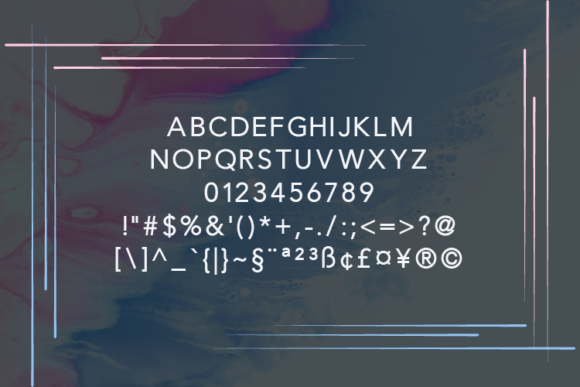
Gothic Regular Font: Elevate Your Designs with Modern Elegance
In the world of typography, fonts play a crucial role in conveying the tone and aesthetic of a design. For designers and crafters seeking a modern and elegant sans serif font, Gothic Regular is an excellent choice. This versatile font is perfect for a wide range of projects, from headings to smaller body text, and pairs beautifully with script and handwritten fonts.
What is Gothic Regular Font?
Gothic Regular Font is a contemporary sans serif font designed to bring a touch of sophistication to your designs. Its clean lines, balanced proportions, and elegant feel make it an ideal choice for designers looking to create visually appealing text. The font’s modern aesthetic ensures it remains versatile, suitable for various applications, from digital media to print materials.
Key Features of Gothic Regular Font
- Modern and Elegant Design: Gothic Regular boasts a sleek, modern design that adds an air of sophistication to any project.
- Sans Serif: The font’s sans serif design ensures clarity and readability, making it perfect for both headings and body text.
- Versatility: Gothic Regular can be used across a variety of mediums, including digital platforms, print materials, and more.
- Pairing Options: This font pairs exceptionally well with script and handwritten fonts, offering endless possibilities for creative combinations.
Use Cases for Gothic Regular Font
Gothic Regular’s versatility makes it suitable for a wide range of design projects. Here are some use cases where this font truly shines:
- Headings and Titles: The font’s elegant design makes it perfect for headings and titles, where a striking first impression is crucial.
- Body Text: Gothic Regular’s readability ensures it works well for smaller body text, providing a seamless reading experience.
- Branding and Logos: The modern aesthetic of Gothic Regular makes it an excellent choice for branding and logo designs, helping to establish a sleek and contemporary identity.
- Web Design: For web designers, Gothic Regular is a great option for creating visually appealing website headers, paragraphs, and other text elements.
Why Choose Gothic Regular Font?
With numerous fonts available, why should designers and crafters choose Gothic Regular for their projects? Here are a few compelling reasons:
- Uniqueness: Gothic Regular offers a unique blend of modernity and elegance, setting it apart from more traditional fonts.
- Readability: The font’s clear and balanced design ensures high readability, making it suitable for a wide range of applications.
- Flexibility: Gothic Regular’s versatility allows it to be used in various contexts, from professional branding to personal projects.
Tips for Using Gothic Regular Font Effectively
To maximize the impact of Gothic Regular in your designs, consider the following tips:
- Mix with Script Fonts: Combine Gothic Regular with elegant script fonts for a sophisticated and stylish look.
- Experiment with Sizes: Play with different font sizes to create visual hierarchy and emphasize key elements in your design.
- Consider Color: Choose colors that complement the modern and elegant feel of Gothic Regular, such as neutral tones or bold contrasting colors.
Gothic Regular Font is a powerful tool for designers and crafters looking to elevate their projects with a modern and elegant sans serif font. Its versatility, readability, and unique aesthetic make it an excellent choice for a wide range of applications. Whether you’re working on a branding project, website design, or print materials, Gothic Regular is sure to bring a touch of sophistication and style to your work.